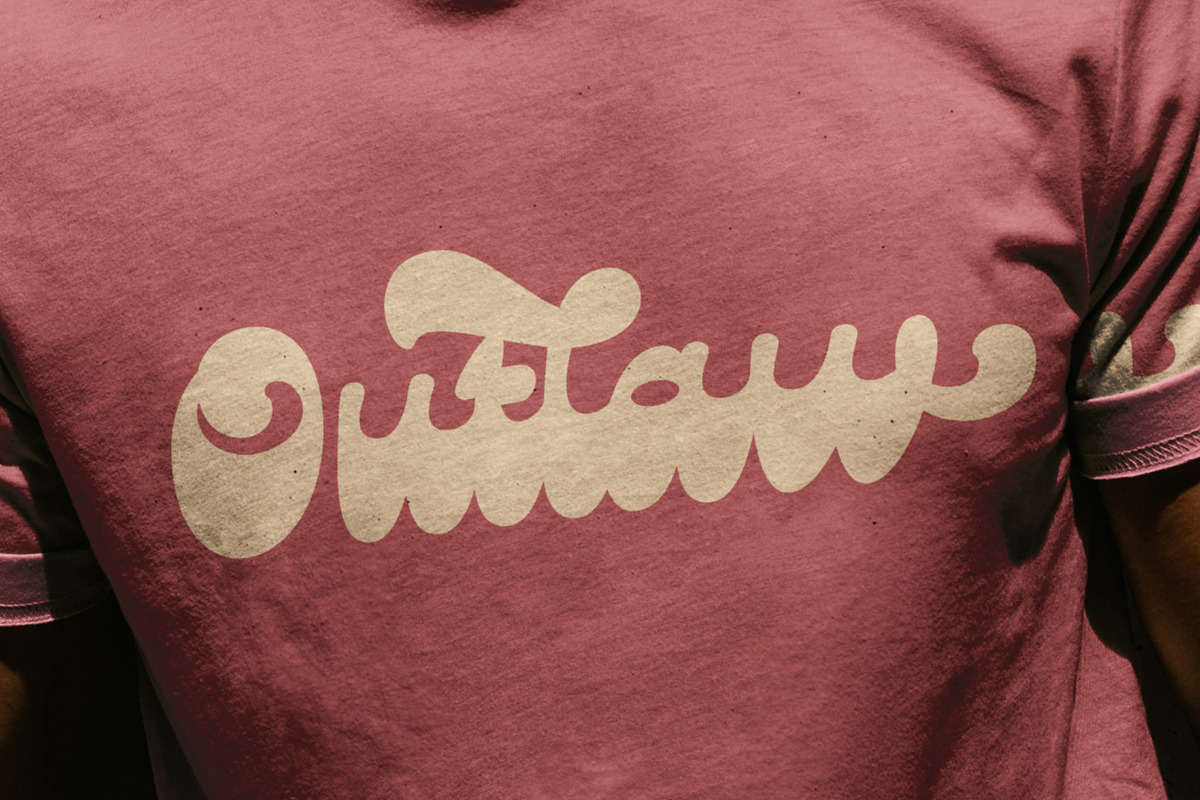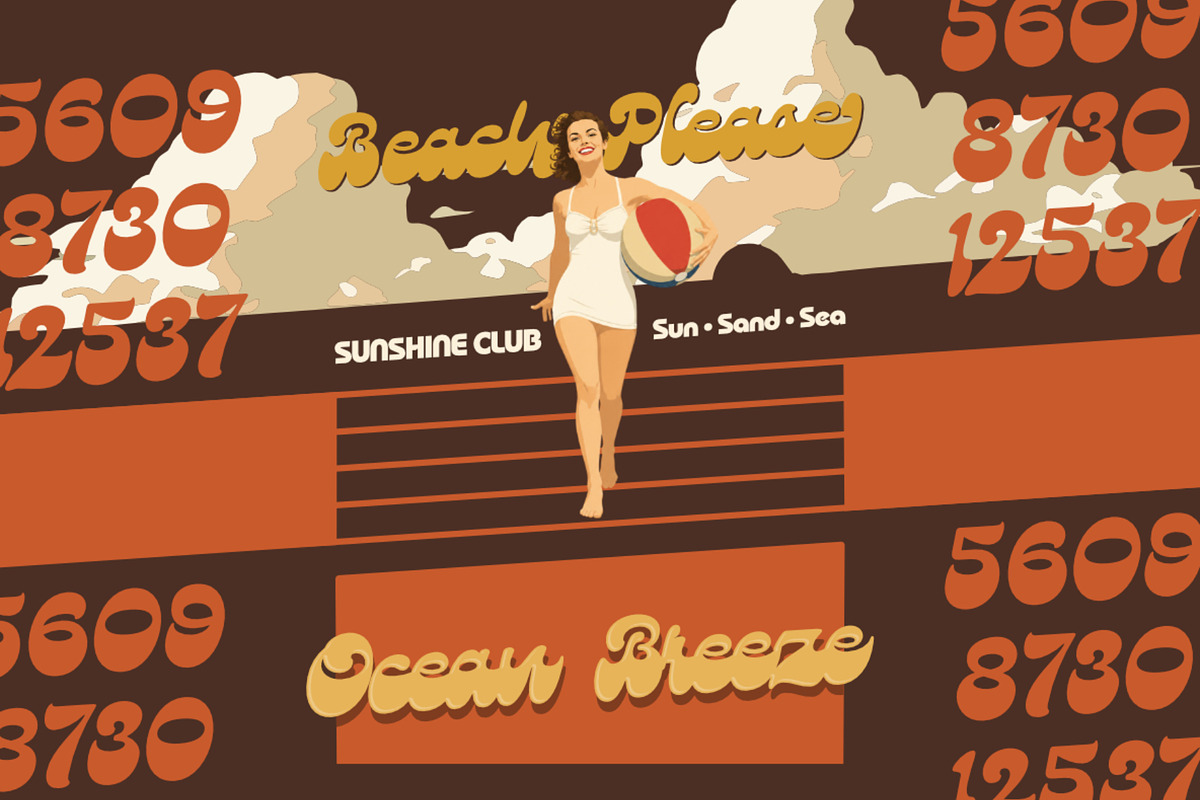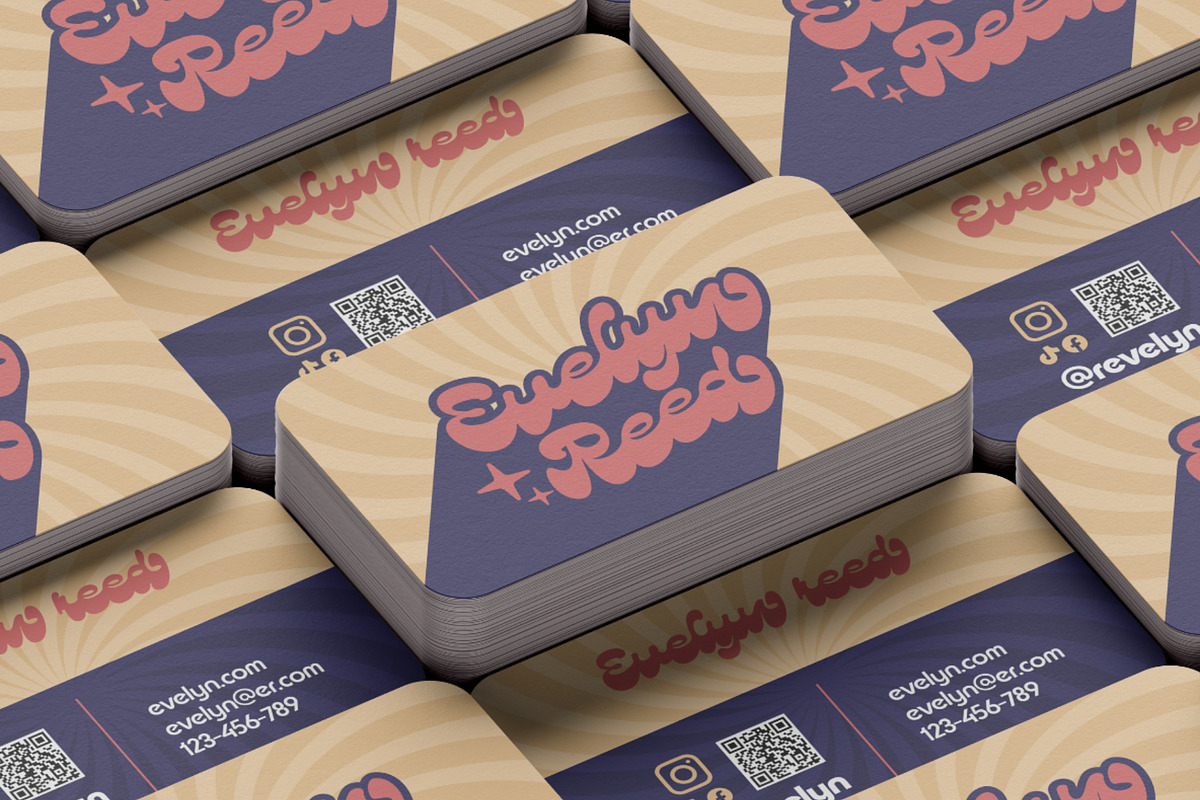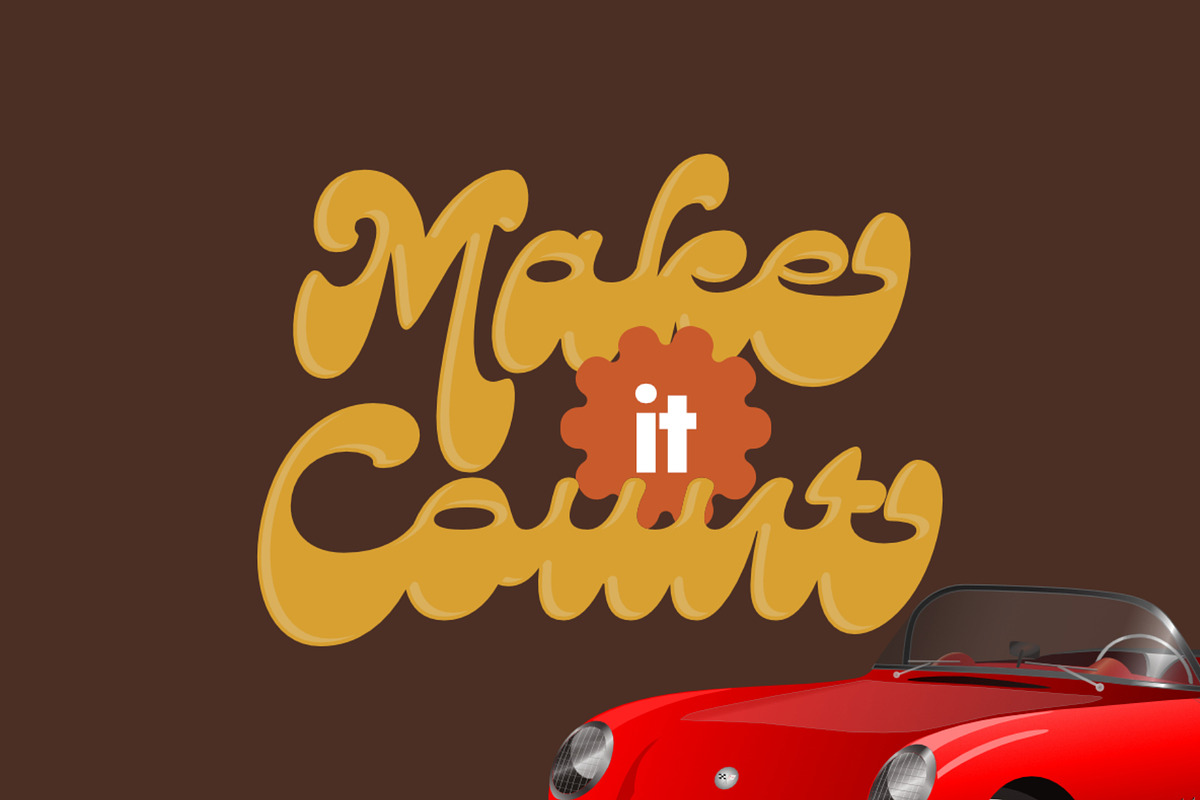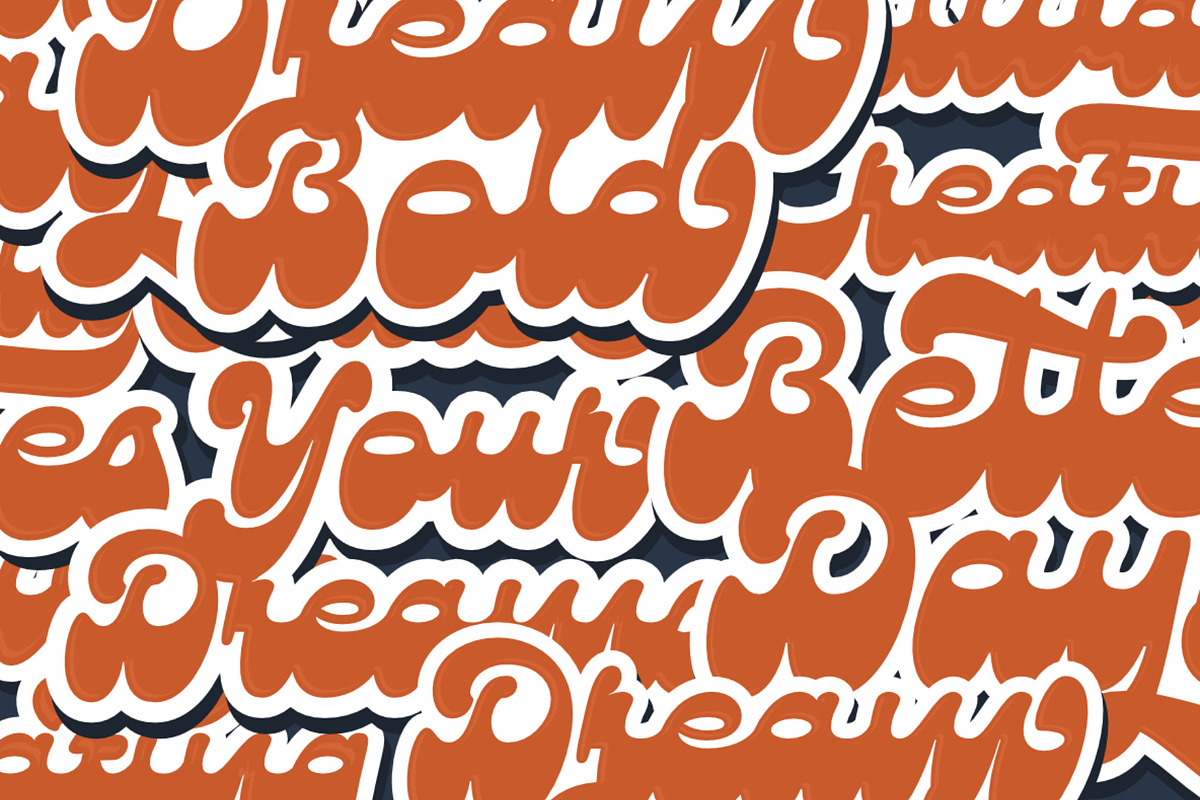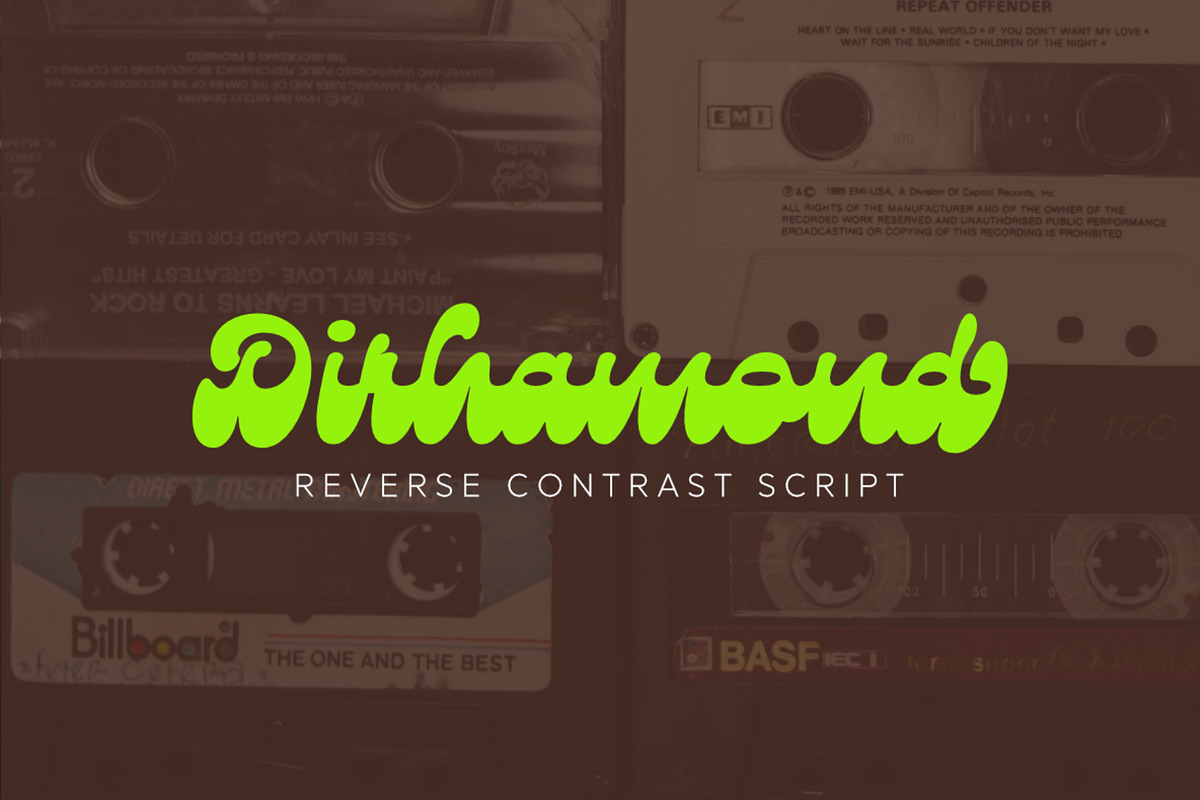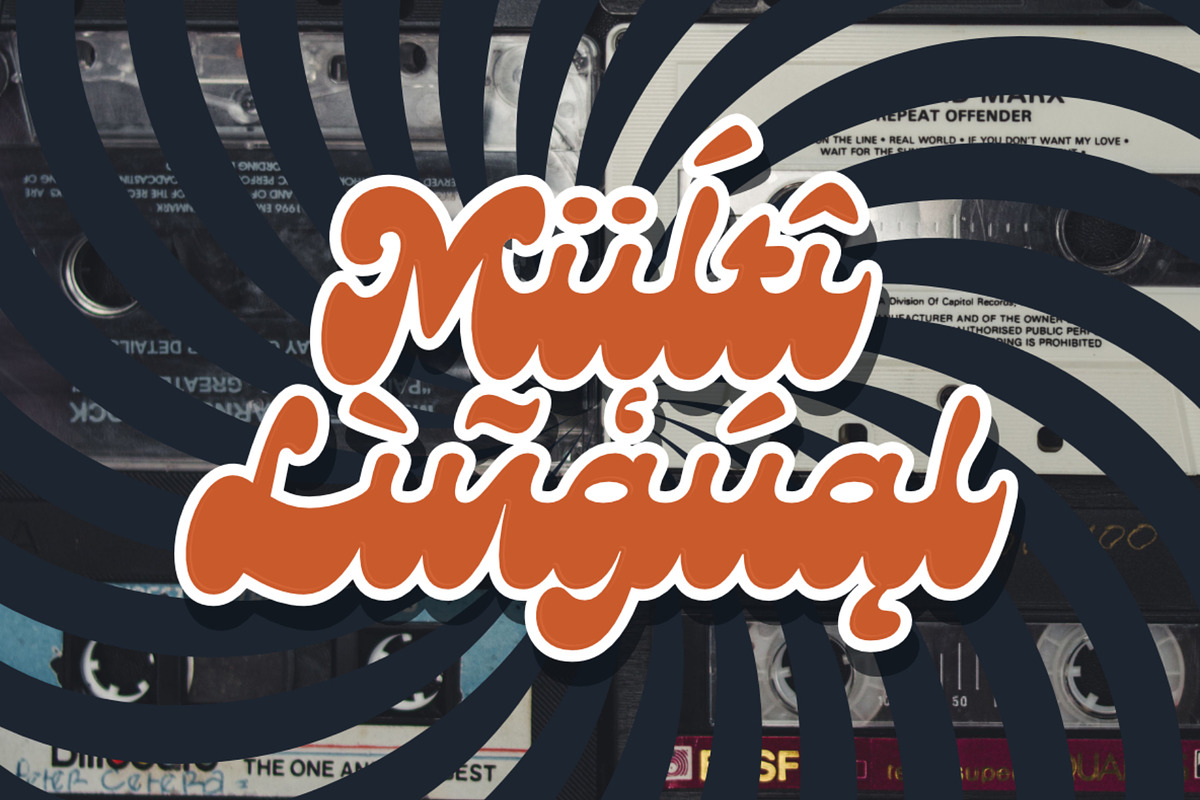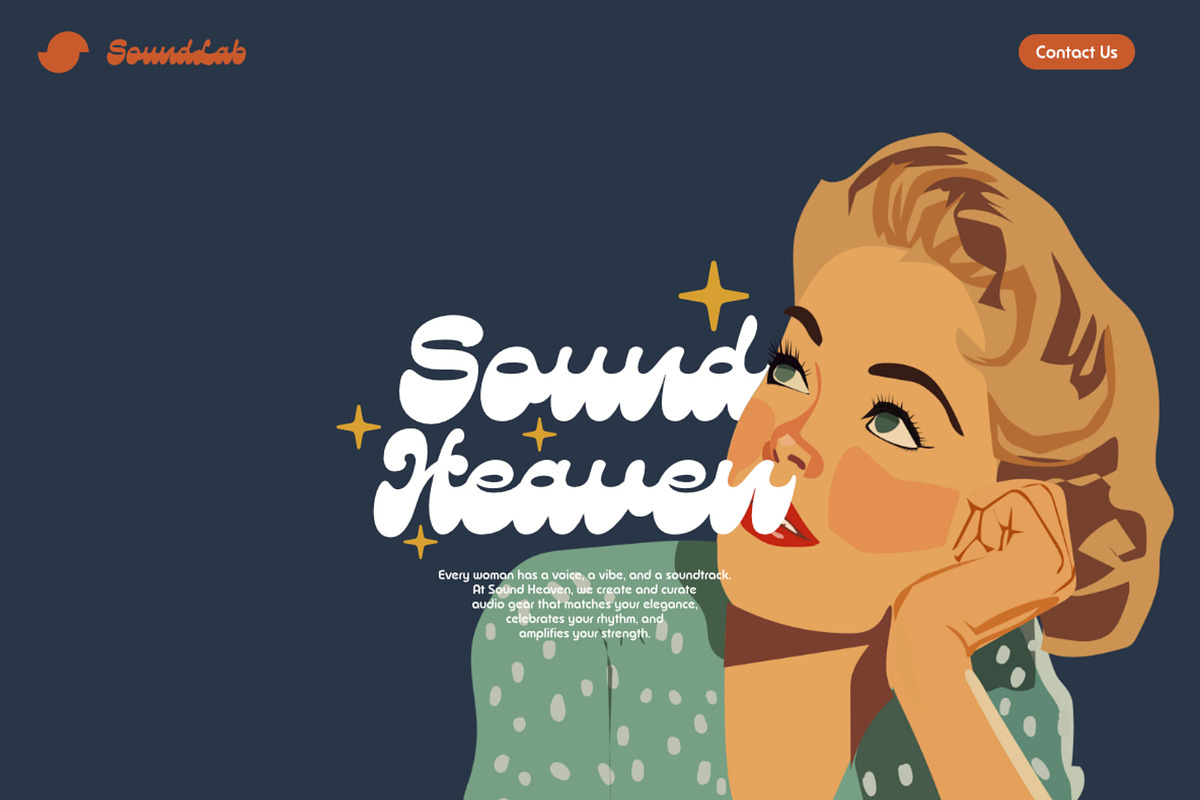
Dirhamond
is a bold and expressive reverse-contrast script font created for designs that demand attention and personality. Inspired by the charm of vintage signage, retro advertising, and mid-century hand lettering, Dirhamond combines nostalgic elegance with a fresh and unexpected visual twist. Its distinctive thick horizontal strokes create a powerful rhythm, while the flowing script forms maintain a handcrafted, dynamic feel.
Every letter is designed to deliver strong character and visual impact, making Dirhamond ideal for projects that need to stand out from the crowd. The font includes a variety of ligatures, stylistic alternates, and decorative swashes, allowing you to experiment with different letter combinations and create a more custom, expressive look. With full multilingual support, Dirhamond is also versatile enough for a wide range of international design projects.
Perfect for logos, branding, product packaging, editorial headlines, posters, apparel, signage, social media graphics, and other bold creative applications. Whether you're creating a retro-inspired identity or adding vintage energy to a modern project, Dirhamond brings confidence, nostalgia, and unmistakable personality to every design.